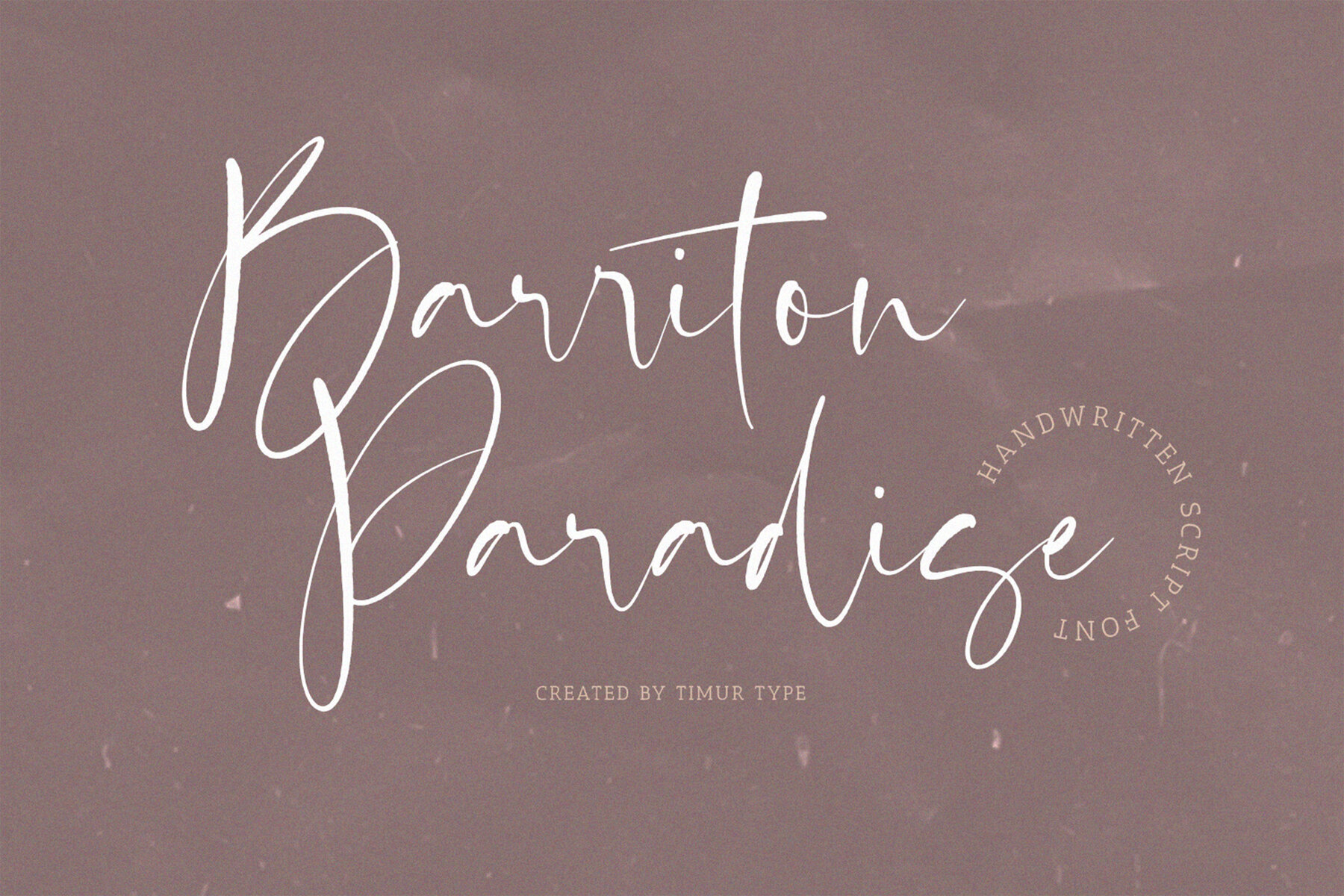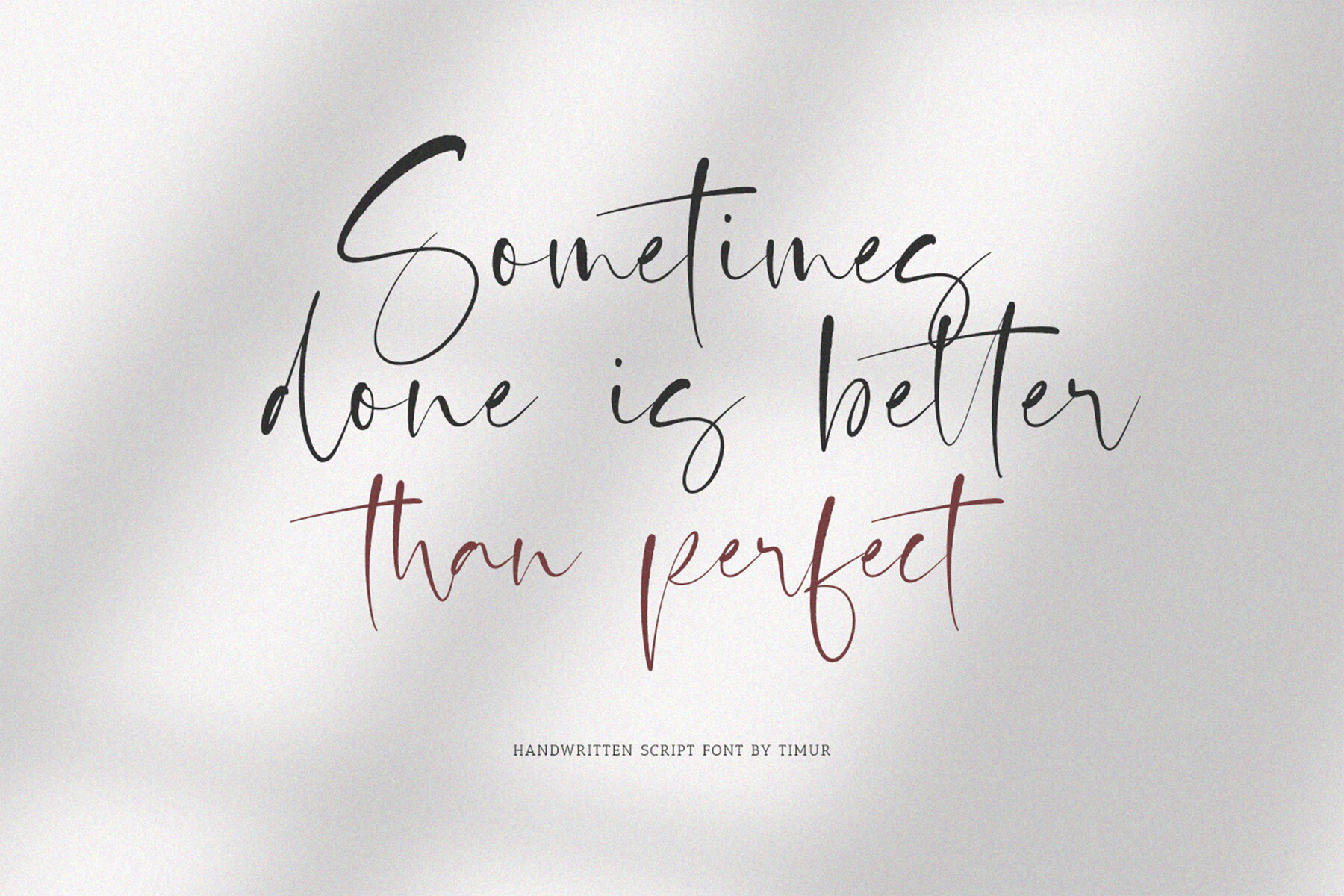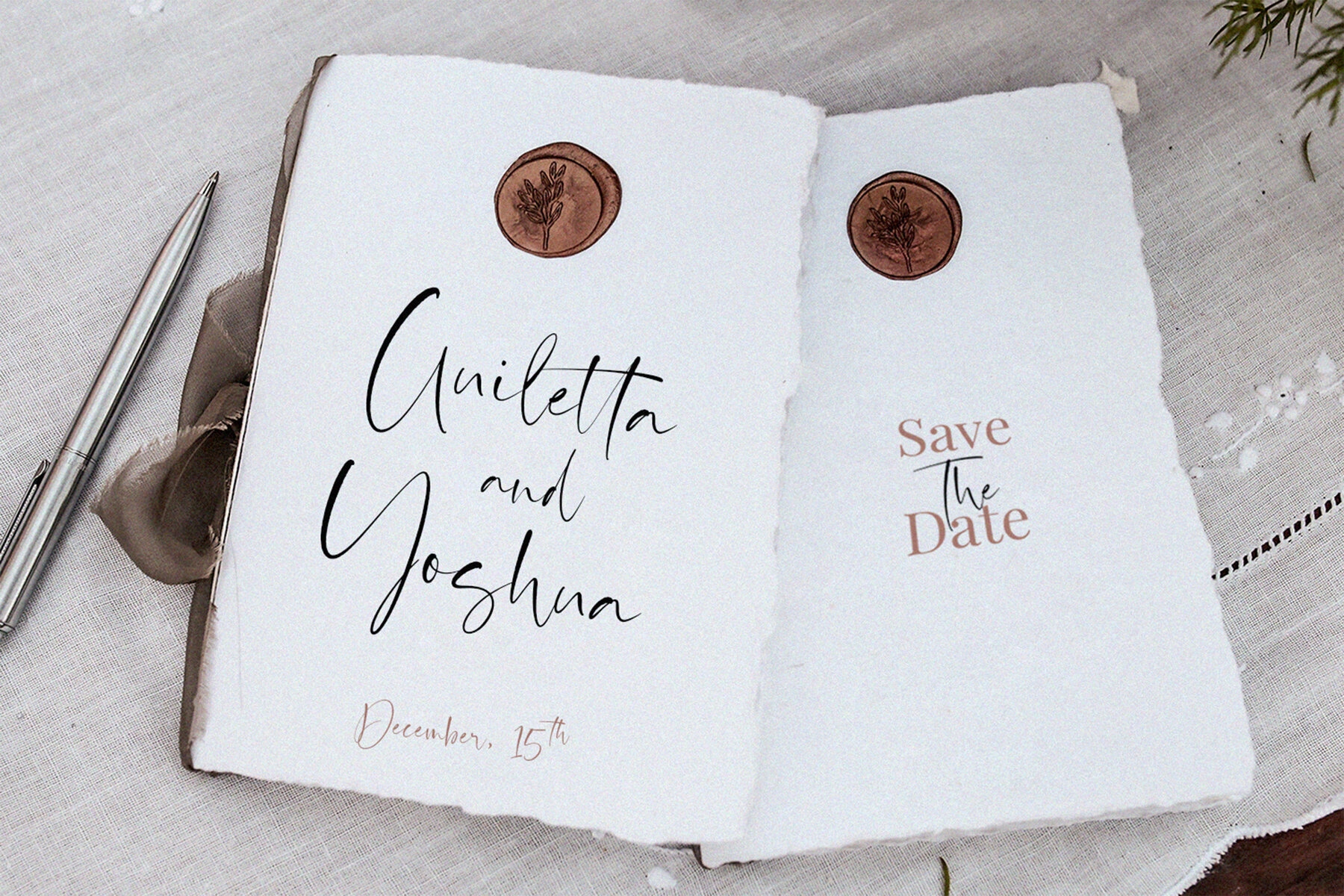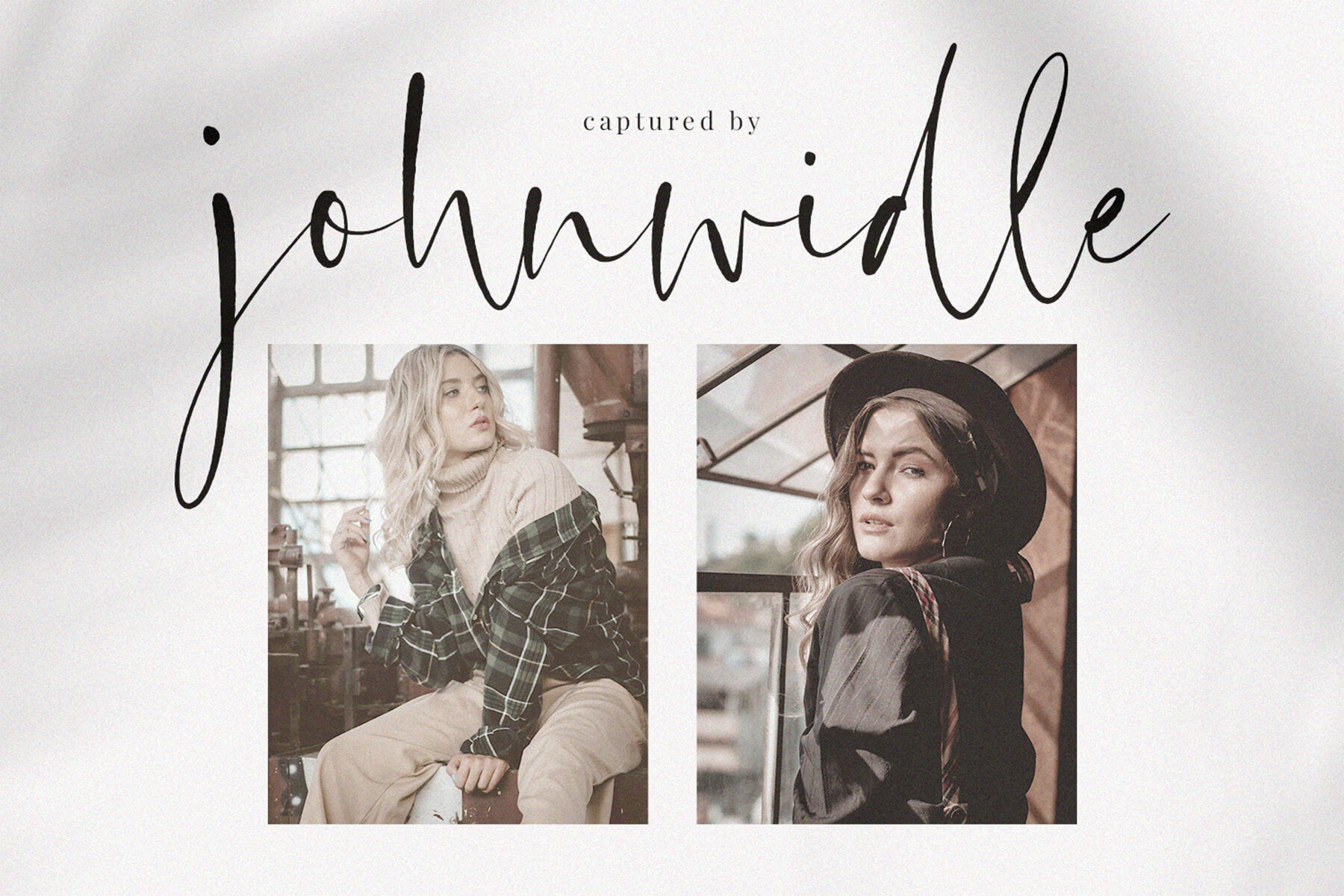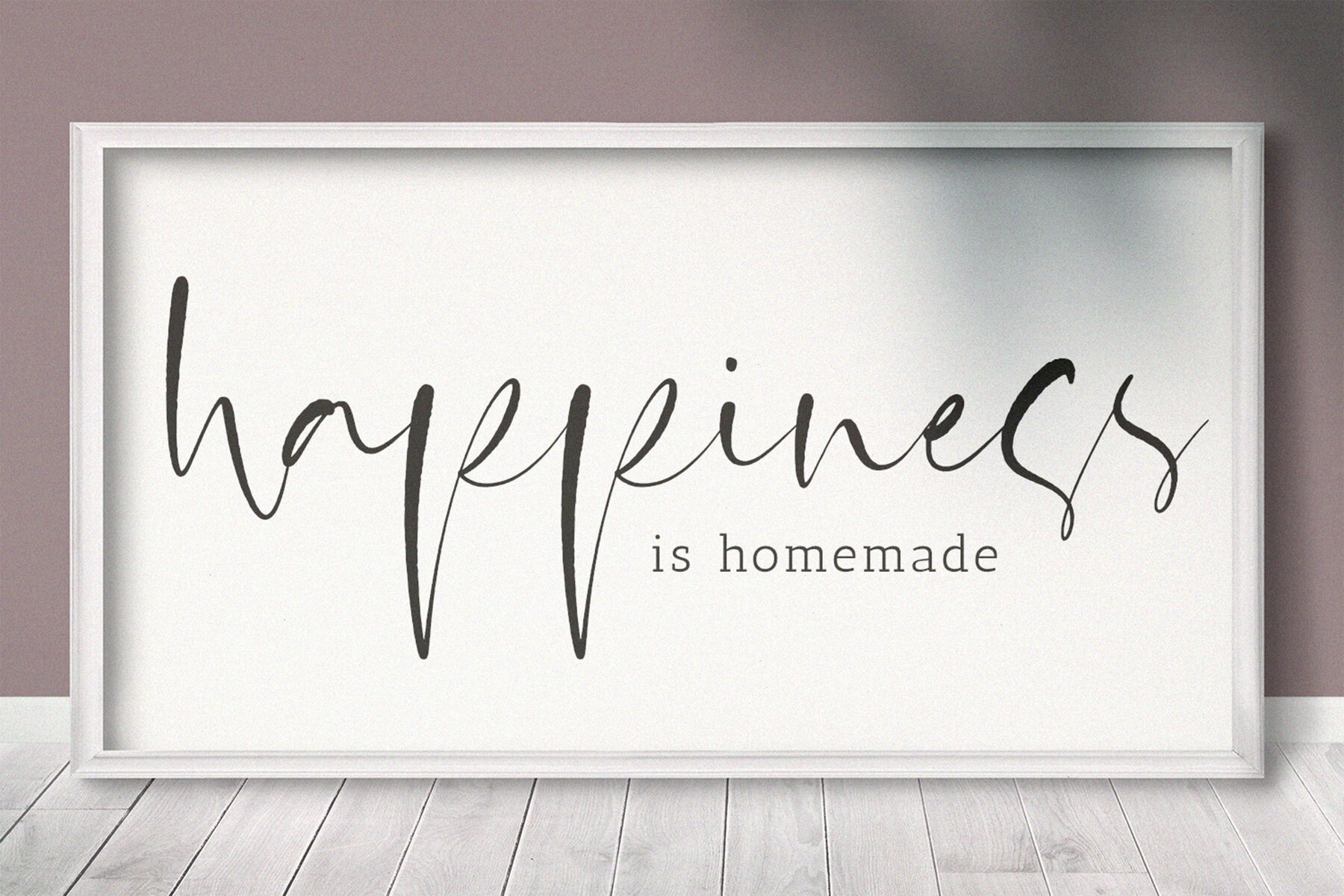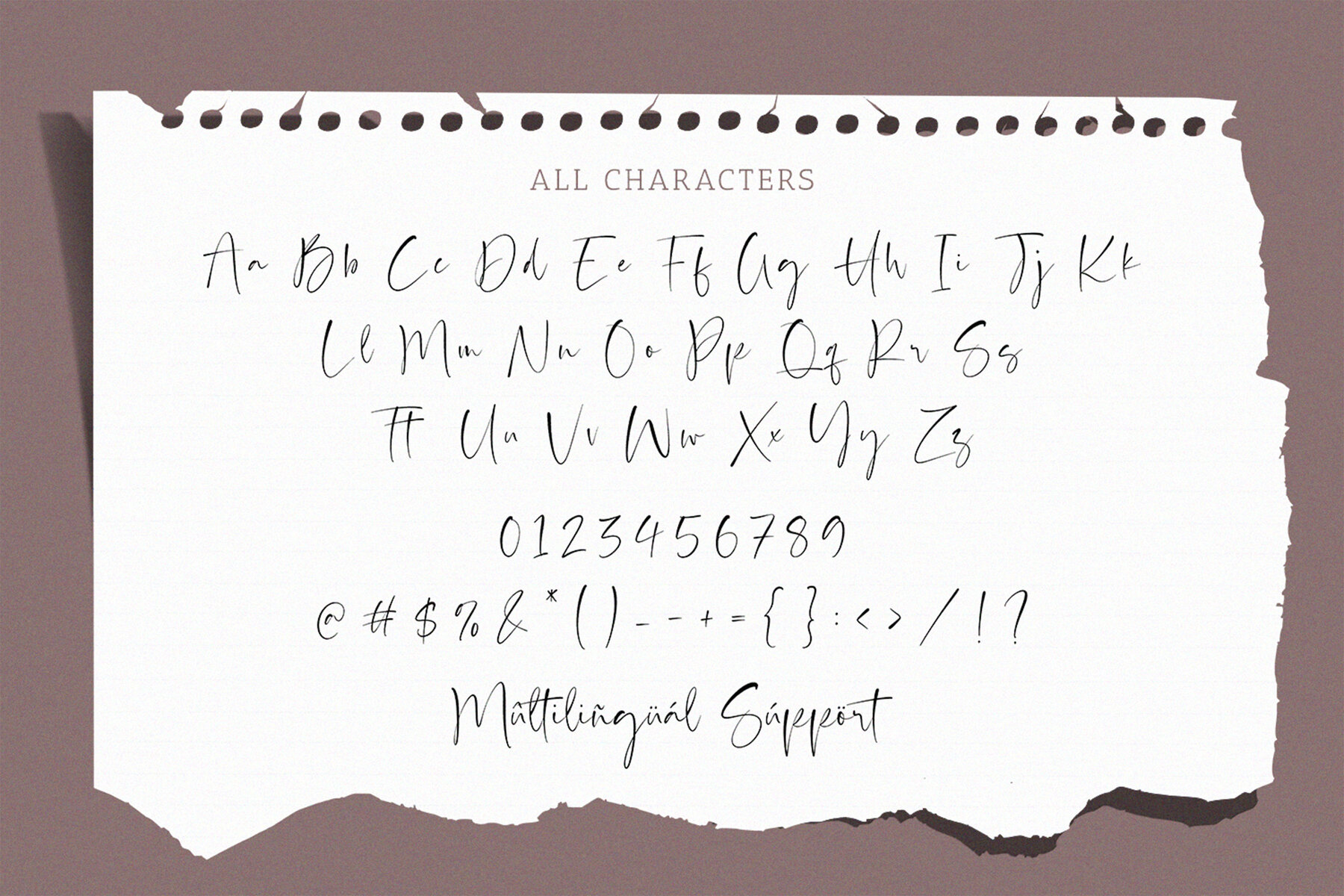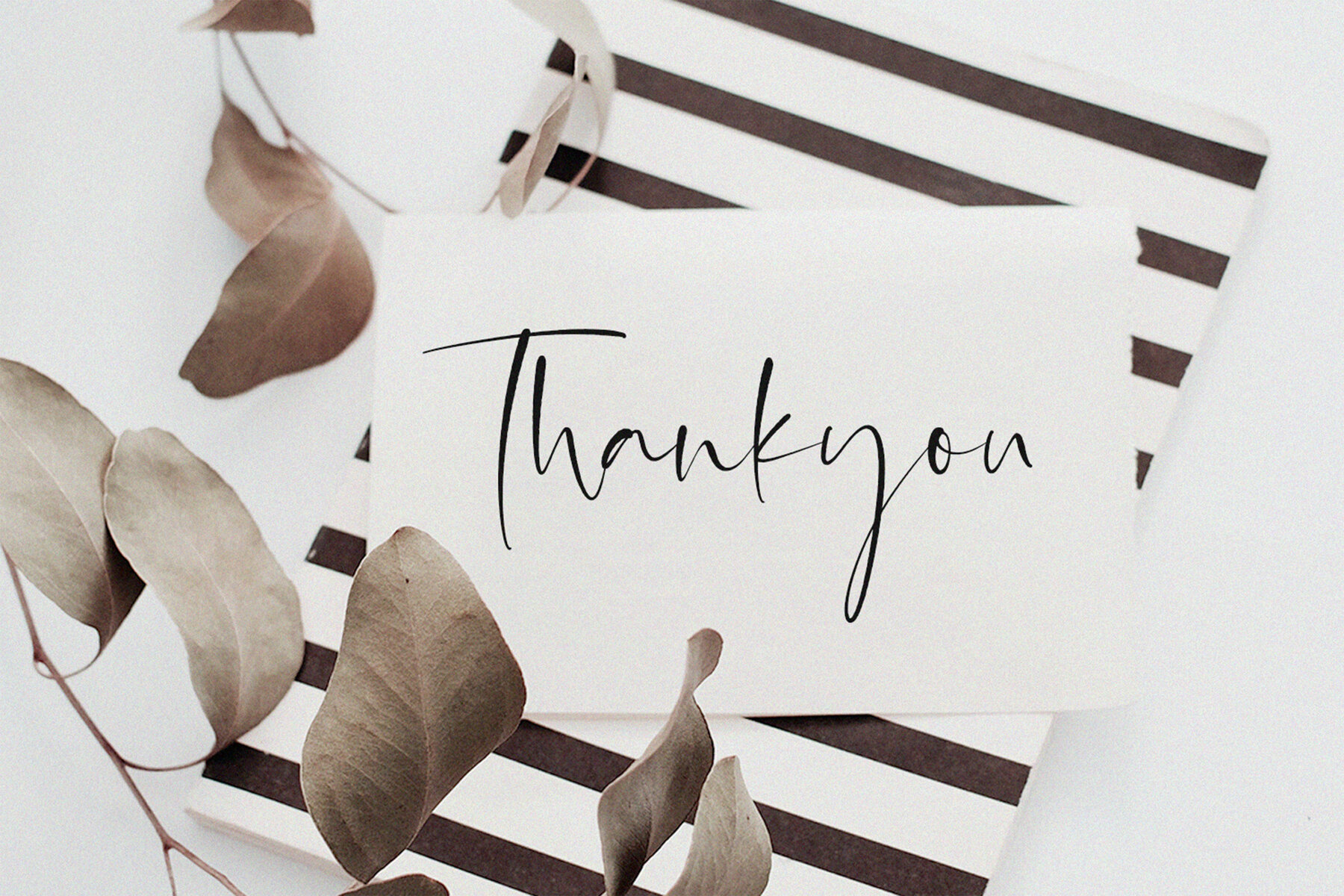
Barriton Paradise Font
Barriton Paradise
This font features a playful and whimsical handwritten script style, perfect for creative and modern design projects. Its flowing, organic curves make it ideal for use in invitations, personalized cards, boutique branding, and artistic digital designs. The unique and artistic nature of this script font will add a stylish and trendy touch to any project.